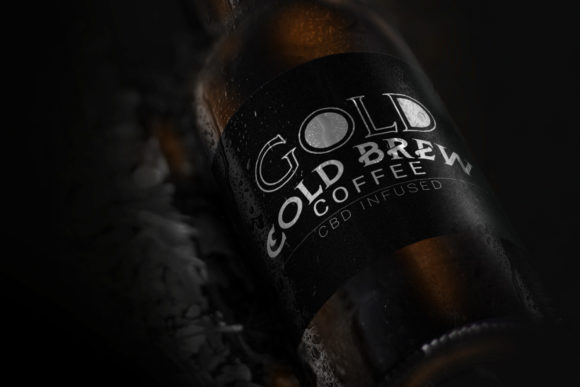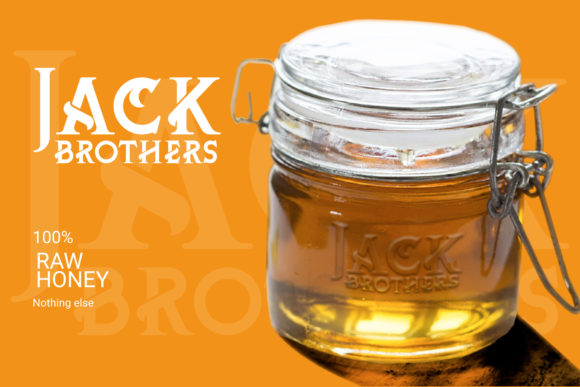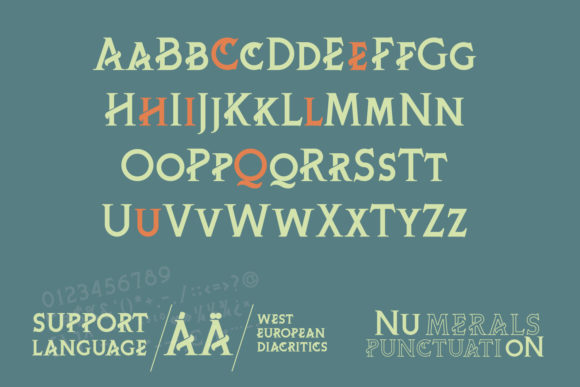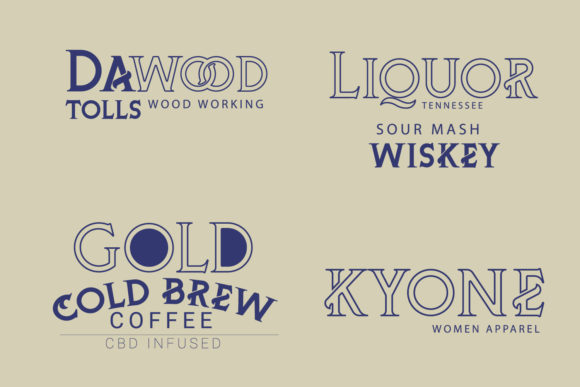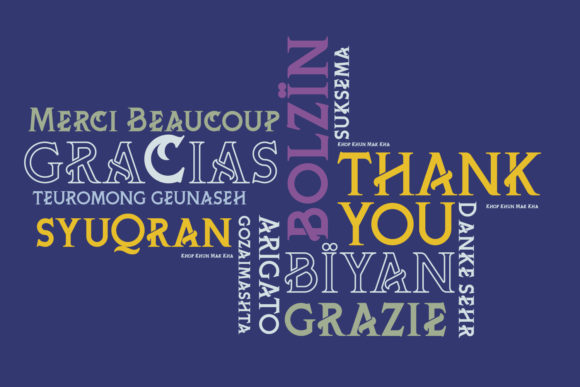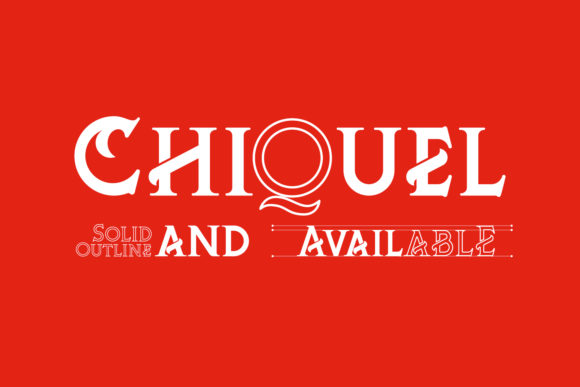
Introducing ChiQuel Font: Elevate Your Design with Timeless Elegance
Are you a designer or crafter looking to add a touch of sophistication and vintage charm to your projects? Look no further than ChiQuel Font, a stunning serif font that exudes class and elegance. With its bold style and classic flair, ChiQuel is the perfect choice for anyone seeking to create authentic and eye-catching designs.
The Characteristics of ChiQuel Font
ChiQuel Font is a serif font that boasts a distinctive vintage feel, reminiscent of classic typography from a bygone era. Its bold style makes it perfect for headlines, titles, and any design element that requires a strong visual impact. The font’s serif details add a level of sophistication and refinement, making it suitable for a wide range of design applications, from luxury branding to elegant stationery.
Why Choose ChiQuel Font?
So, what sets ChiQuel Font apart from other fonts on the market? Here are just a few reasons why designers and crafters are falling in love with this beautiful font:
- Timeless Elegance: ChiQuel Font’s classic design ensures that your projects will never go out of style. Its vintage charm is perfect for creating designs that evoke a sense of nostalgia and sophistication.
- Versatility: Whether you’re working on a luxury brand, a craft project, or a digital design, ChiQuel Font is the perfect choice. Its bold style and serif details make it suitable for a wide range of applications.
- Easy to Read: Despite its bold style, ChiQuel Font is surprisingly easy to read, making it perfect for body text as well as headlines.
- Unique Character: ChiQuel Font has a distinctive character that sets it apart from other serif fonts. Its unique blend of classic and modern elements makes it a standout choice for designers.
How to Use ChiQuel Font in Your Designs
Ready to incorporate ChiQuel Font into your designs? Here are a few ideas to get you started:
- Logos and Branding: Use ChiQuel Font to create a bold and memorable logo that exudes elegance and sophistication.
- Stationery and Invitations: Add a touch of vintage charm to your stationery and invitations with ChiQuel Font.
- Digital Designs: Use ChiQuel Font to create eye-catching digital designs, such as social media graphics, blog headers, and more.
- Crafting and Scrapbooking: ChiQuel Font is perfect for crafters and scrapbookers looking to add a touch of elegance to their projects.
Tips for Getting the Most Out of ChiQuel Font
To ensure that you get the most out of ChiQuel Font, here are a few tips to keep in mind:
- Experiment with Colors: ChiQuel Font looks stunning in a range of colors, from classic black and white to bold brights and metallics.
- Play with Pairings: Try pairing ChiQuel Font with other fonts to create a unique and eye-catching combination.
- Don’t be Afraid to Get Creative: ChiQuel Font is a versatile font that can be used in a wide range of design applications. Don’t be afraid to think outside the box and try something new.
ChiQuel Font is a stunning serif font that offers a unique blend of classic elegance and modern sophistication. With its bold style, vintage charm, and versatility, it’s the perfect choice for designers and crafters looking to elevate their projects and create authentic pieces of art. Whether you’re working on a luxury brand, a craft project, or a digital design, ChiQuel Font is sure to impress. So why wait? Download ChiQuel Font today and start creating designs that exude timeless elegance and sophistication.